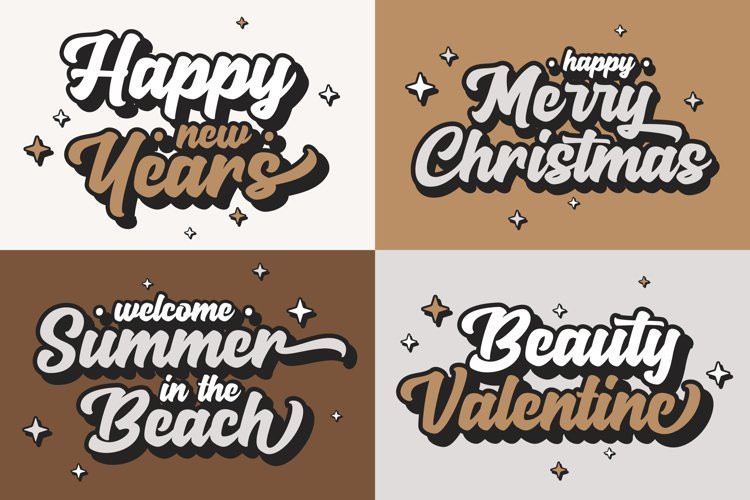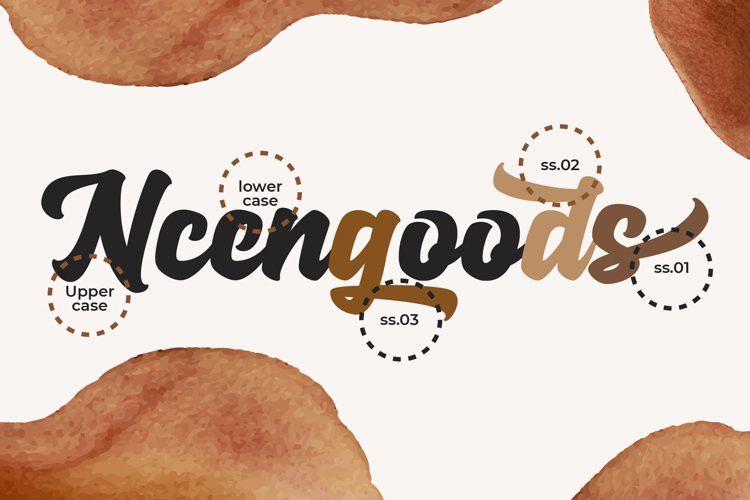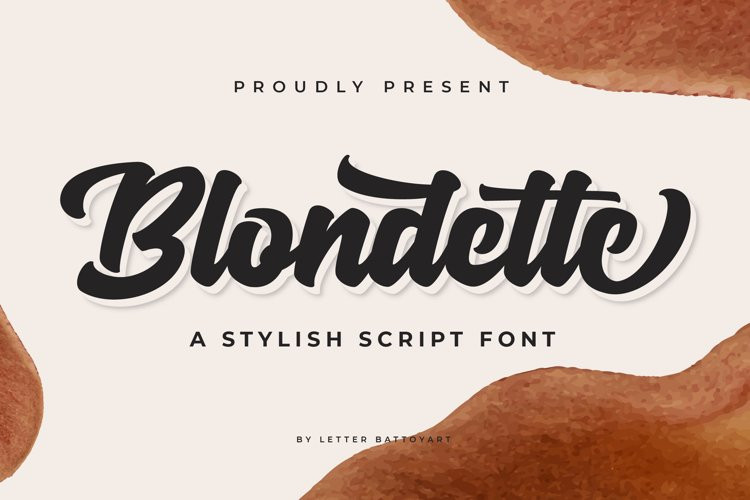
Blondette Font
Blondette FontBlondette is a bold, trendy and stylish script font.
Blondette will elevate a wide range of crafting ideas, from business cards, wedding invitation, to branding, labels and much more.